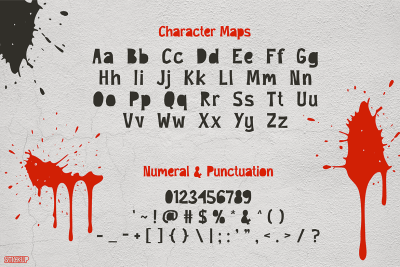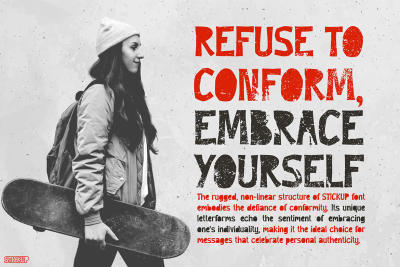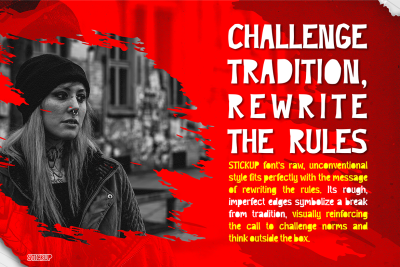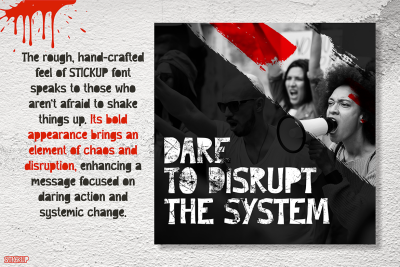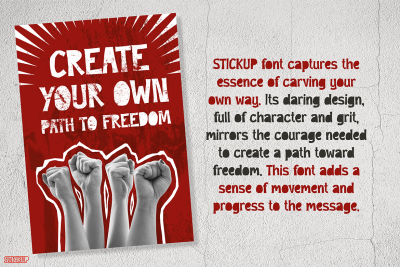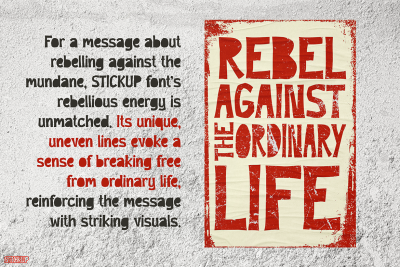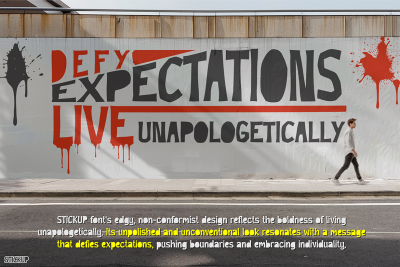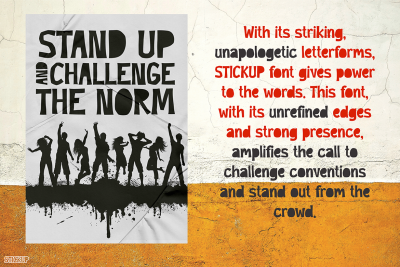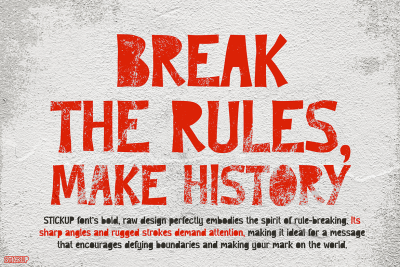
Music Font Stickup brings a fun, edgy vibe with its quirky, hand-drawn style. Its irregular shapes and bold, blocky letters immediately catch attention, making it perfect for music-related designs. Moreover, the font delivers a street-art feel, reminiscent of graffiti or hand-painted signs. As a result, it blends playfulness with raw energy, injecting personality into any project.
Additionally, the red lettering in the example intensifies its sense of urgency and passion. The rough edges and uneven lines further enhance Stickup’s raw, spontaneous look, as if sketched in the moment. Therefore, this feature makes it ideal for designs requiring a bold, personal touch. Furthermore, the font radiates creative freedom and self-expression, making it perfect for music festival posters, band logos, or album art.
Music Font Stickup suits musicians, event organizers, and designers aiming to showcase creativity and individuality. It fits particularly well with music festival branding, concert posters, or band merchandise. Additionally, the hand-drawn style appeals not only to fans of indie, alternative, or street culture music but also to those who crave a rebellious, artistic edge. Whether you are promoting a rock concert or an underground event, Stickup ensures a striking visual impact.
Moreover, bands and artists seeking a unique, edgy identity will find Stickup highly effective. It naturally pairs with genres like punk, indie rock, and hip-hop, where breaking norms and self-expression are central. DIY artists or bands can use Stickupโs authentic, raw style to connect with fans who love underground aesthetics. In addition, its bold design helps bands stand out in a competitive market.
Event organizers can also use Stickup to promote independent music shows. Its bold, creative appearance perfectly aligns with the rebellious spirit of these events. Furthermore, beyond music, Stickup works equally well for streetwear brands, art galleries, or any project looking to convey a raw, artistic feel. The font’s bold, hand-drawn look attracts younger, urban audiences who value originality and creativity. As a result, Stickupโs playful yet gritty design will ensure your project grabs attention and stands out.